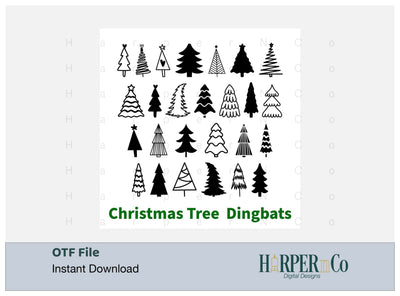
Christmas Tree Dingbats, Hand drawn font
Featuring 26 unique hand drawn designs, the Christmas Tree Dingbat Font injects a dash of whimsical festivity into all your cherished holiday project. With each element exuding a charming Christmas tree theme, this OTF file offers an enchanting way to bring your creative ideas to life. Let the spirit of Yuletide inspire your crafts as every letter transform into a festive delight. This digital treat captures the sparkle of the season, making each project a Christmas carol of visual harmony. Celebrate the joy of Christmas crafting with the versatile allure of Christmas Tree Dingbat Font.